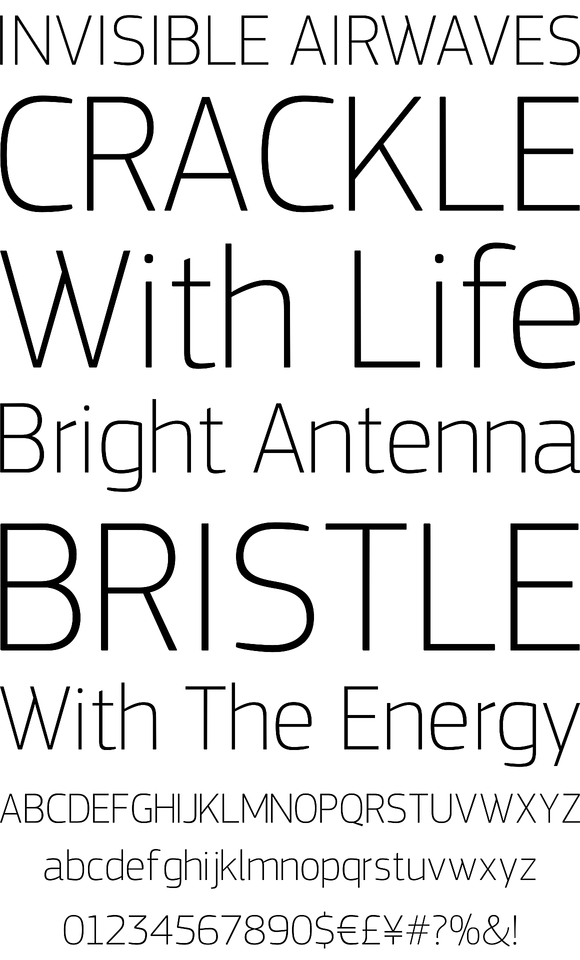
PF Square Sans Pro
Designer Panos Vassiliou created Square Sans Pro in his quest for a true square-like text typeface which could balance simplicity with vitality and enhance with its subtle power the identity of any product or service, without compromising its characteristics as a text typeface. The family consists of 12 fonts -from extrablack to thin- including true italics. It supports 19 special opentype features like small caps, fractions, ordinals, etc. and offers multilingual support for all European languages including Greek and Cyrillic. Finally, every font in this family has been completed with 270 copyright-free symbols, some of which have been proposed by several international organizations for packaging, public areas, environment, transportation, computers, fabric care and urban life.